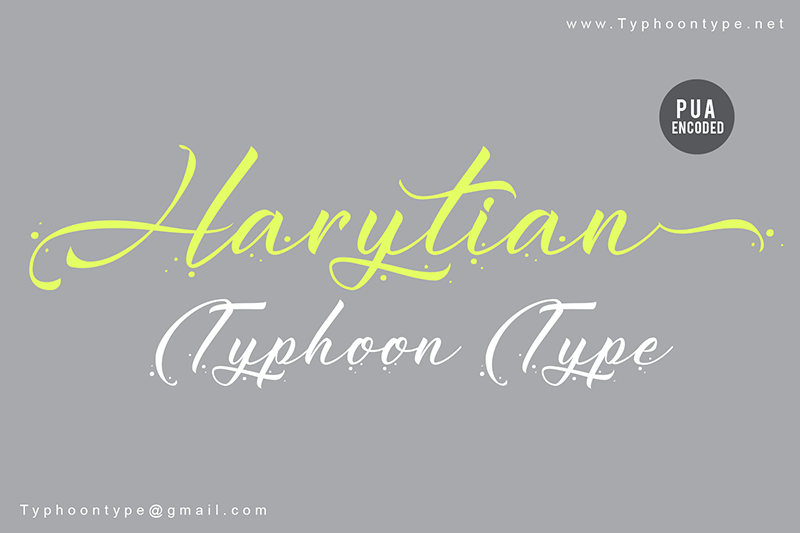
Harytian Calligraphy Font
Harytian Font is a beautiful script that is classy, elegant, and modern. Harytian is ideal for logos, apparel,T-shirt,Hoodie, quotes, product packaging, or anything which needs a typographic turbo-boost. With extra attention to quick strokes and sharp details,
Made carefully to create the perfect texture and suitable for each of your projects also great for Logotype, Branding Design, Logo Design, Digital Lettering Arts, T-Shirt/Apparel, Poster, Magazine, Signs, Advertising Design, and any vintage design needs.